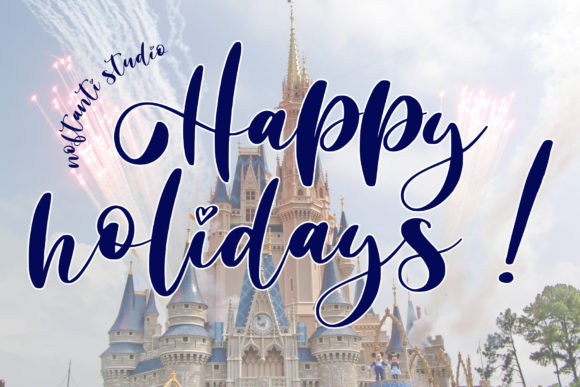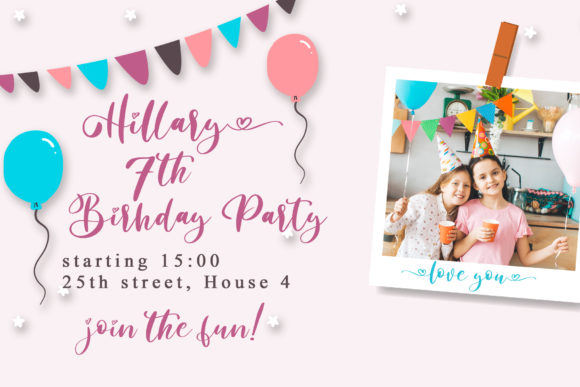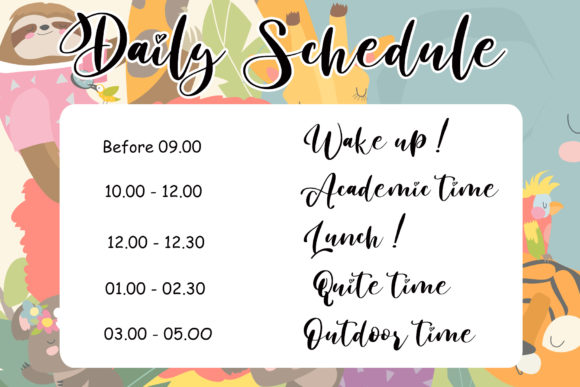
Introduction to Inggitha Font
Have you ever been working on a creative project and stumbled upon the perfect design element that makes all the difference? For designers, that moment is priceless. It’s when all the pieces come together, and your vision is finally realized. For me, that moment came when I discovered the Inggitha Font. This beautiful, flowing handwritten font is a game-changer for any design project.
With its versatility and wide range of applications, Inggitha Font is a valuable resource for designers. Whether you’re working on greeting cards, kids’ crafts, or any other creative project, this font is guaranteed to add a sweet touch. And with its PUA encoded feature, you can access all of the glyphs and swashes with ease, making it a high-quality design resource.
Key Features of Inggitha Font
- High-quality, professional font suitable for creative projects and design resources.
- Includes a range of characters, including uppercase and lowercase letters, numbers, and special symbols.
Honest Review: Inggitha Font
I recently had the chance to work with the Inggitha Font, and I must say it’s a great addition to any design resource. One of the things that stood out to me was the font’s unique style, which added a touch of elegance to my creative project.
Here are some of the things that work well with the Inggitha Font: ✨
- High-quality design that’s perfect for formal and creative projects.
However, there are a few limitations to keep in mind: ⚠️
- Limited font styles and sizes, which may not be suitable for complex designs.
- No support for bold or italic font variations.
Overall, I’m impressed with the Inggitha Font, and I think it’s a great choice for designers looking for a high-quality, free download option. While it may not be suitable for every project, it’s a great addition to any design resource.
Tips for Getting the Most Out of Inggitha Font
For optimal use, pair Inggitha Font with a solid-colored background to minimize the visibility of the transparent background. Experiment with different font sizes and colors to achieve the desired visual effect.
Inggitha Font is commonly used in creative projects, such as brochures, flyers, and social media graphics, where high-quality typography is essential. Its unique style and transparent background make it an excellent choice for designers looking to add a touch of elegance to their designs.